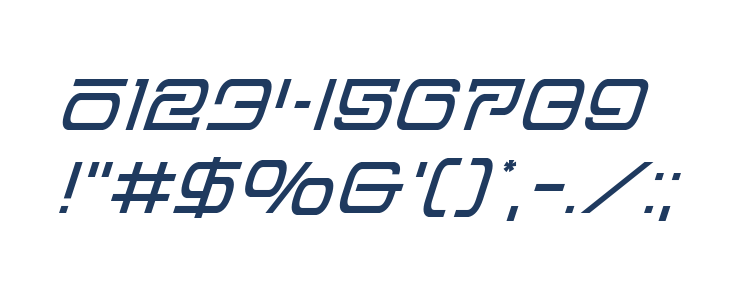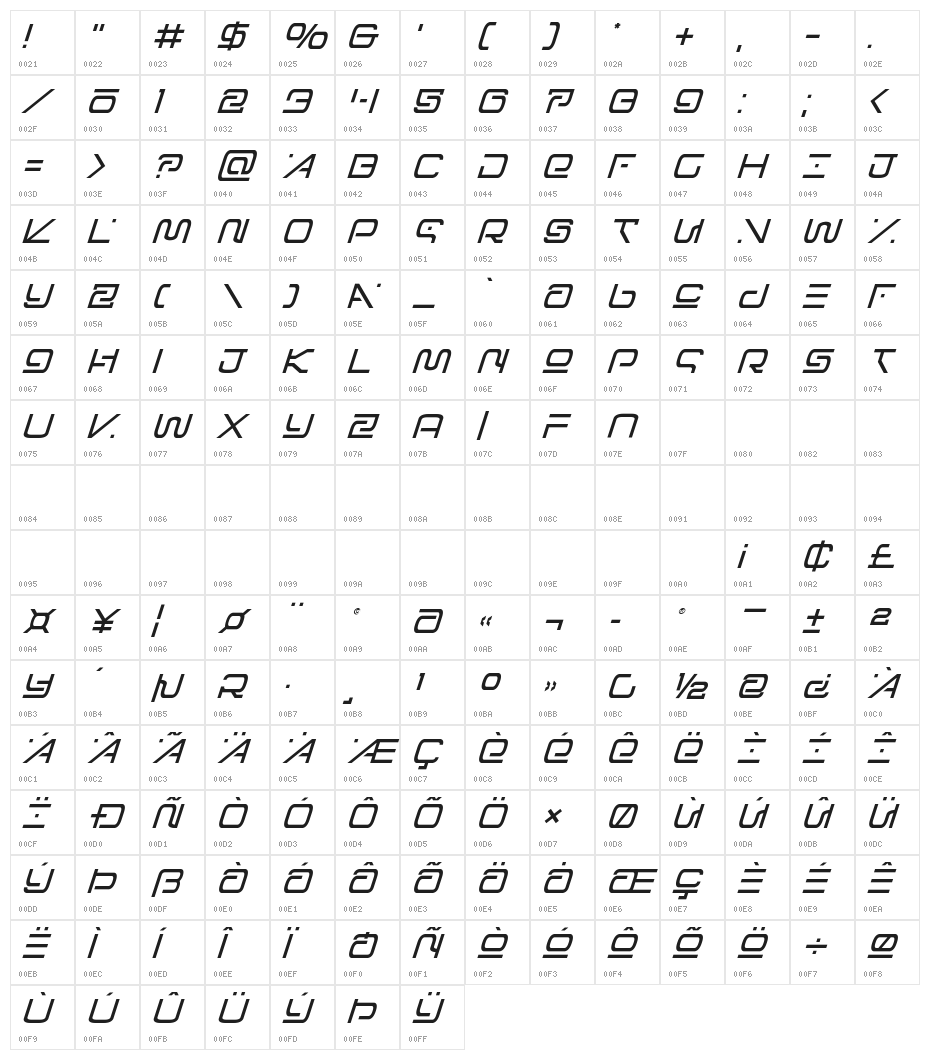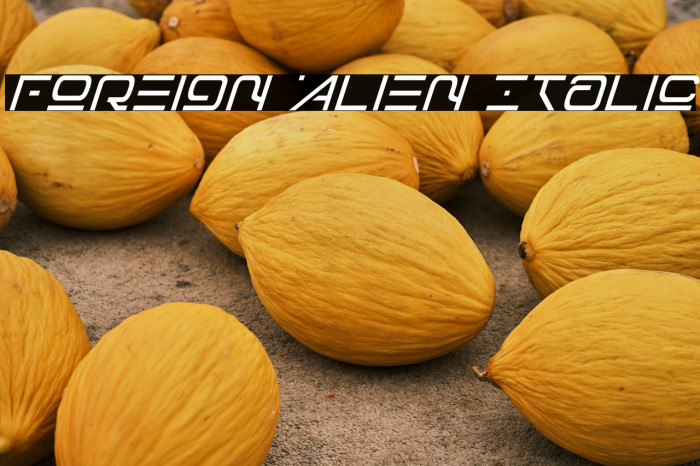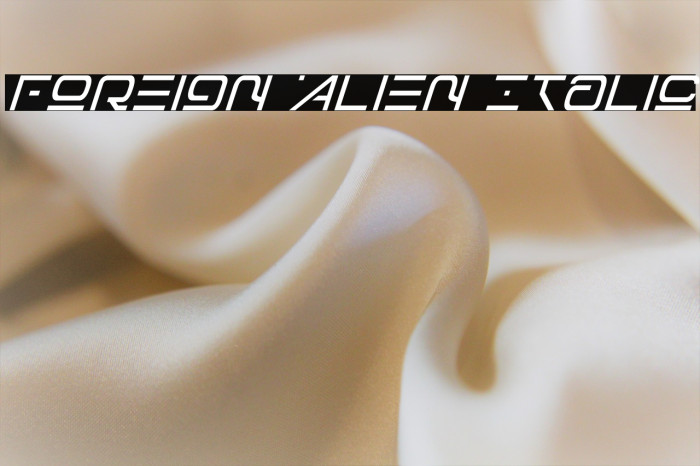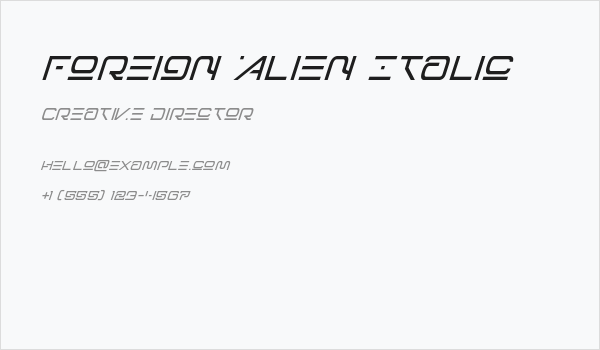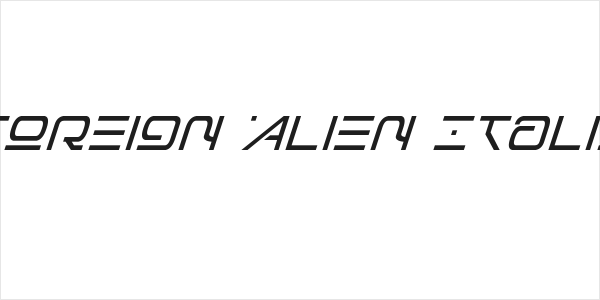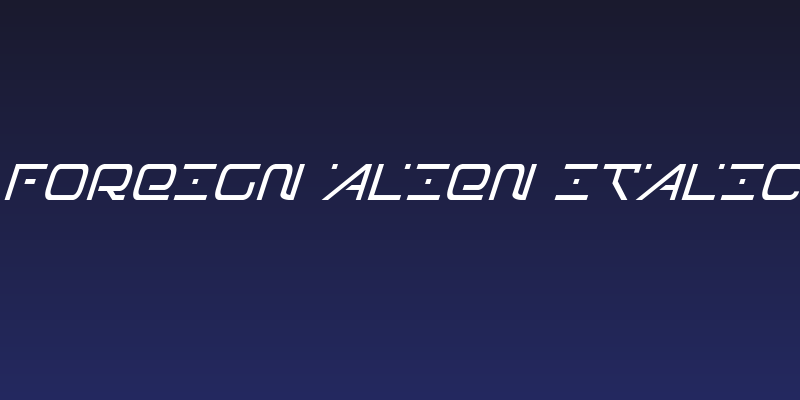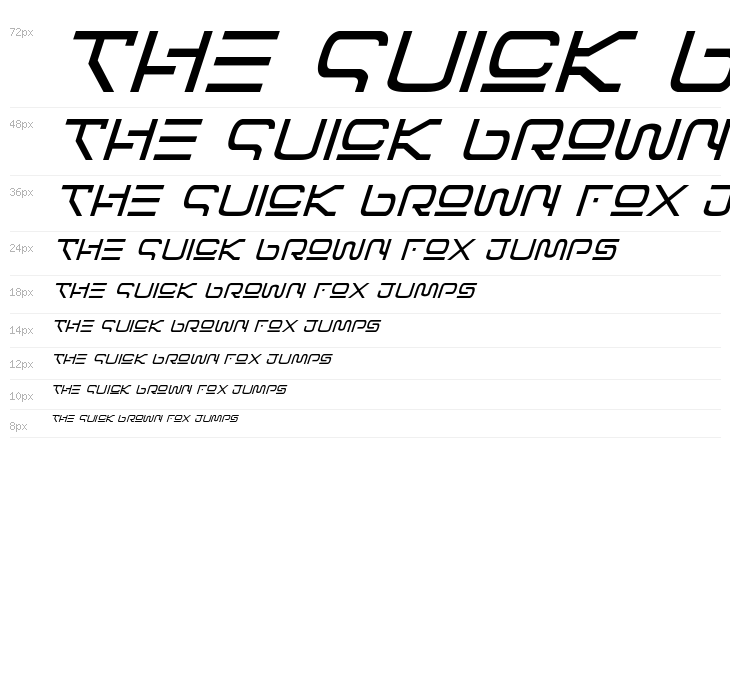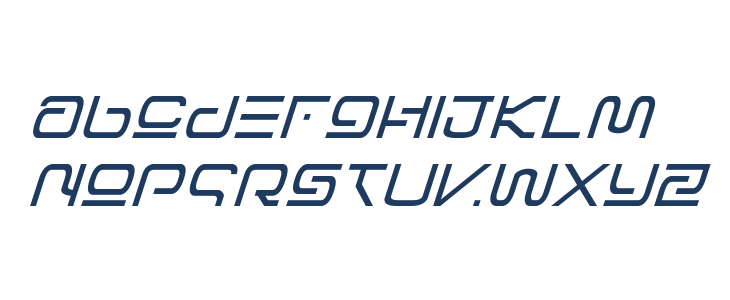
Foreign Alien Italic Font
Foreign Alien Italic Description
This font features a futuristic and angular design, characterized by its sharp edges and italicized slant. The letters are constructed with a geometric precision that gives them a sleek and modern appearance. The uppercase and lowercase letters maintain a consistent style, with unique cuts and angles that create a sense of movement and speed. The numbers and special characters are designed to match the overall aesthetic, ensuring a cohesive look across all elements. The font's distinct style makes it ideal for projects that require a modern and tech-forward appearance.